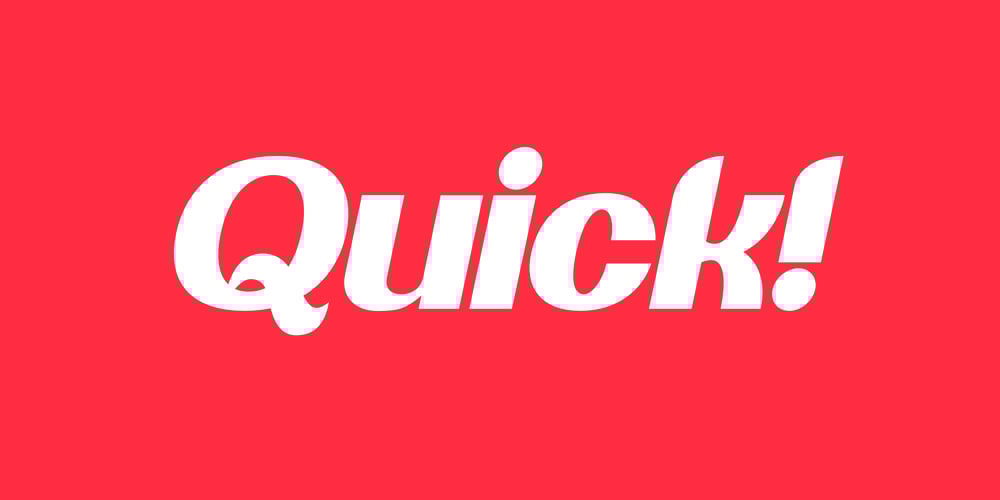
OTC Quick Font Family was designed by Hein Boekhout and published by OTC. OTC Quick contains 2 styles and family package options. OTC Quick is a modern sans serif display font that grabs attention with its unique blend of geometric and organic shapes. Available in both upright and italic styles, this black font features oval counters and curved ascenders, creating a look that’s both bold and inviting.Perfect for branding, logos, headlines, film titles, advertisements, packaging, t-shirts, cards, and posters. It’s ideal for any project that demands a statement-making presence.The OTC Quick typeface is inspired by the typography on Frank Ocean’s “Blonde” album cover.